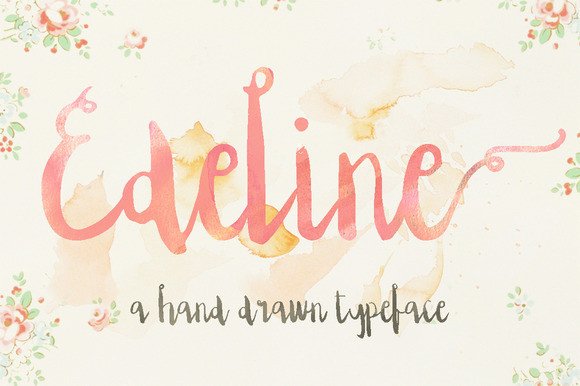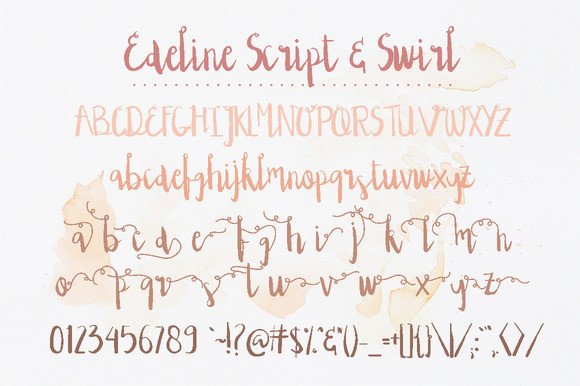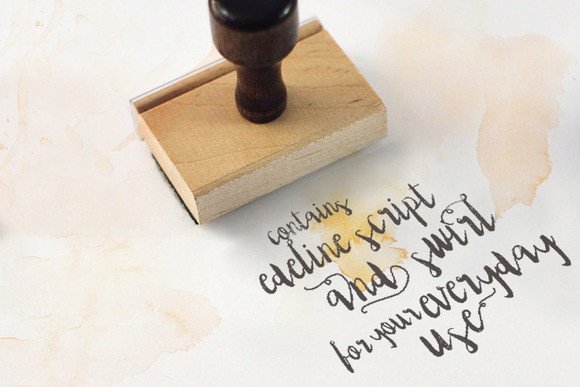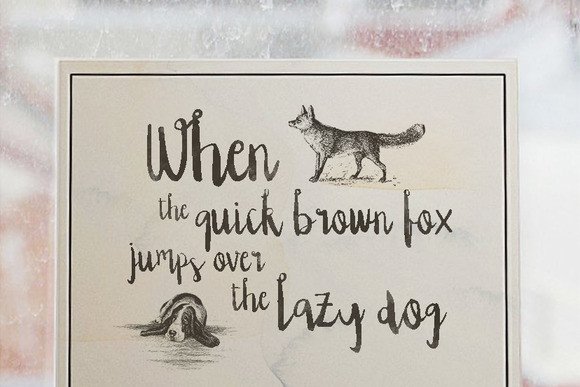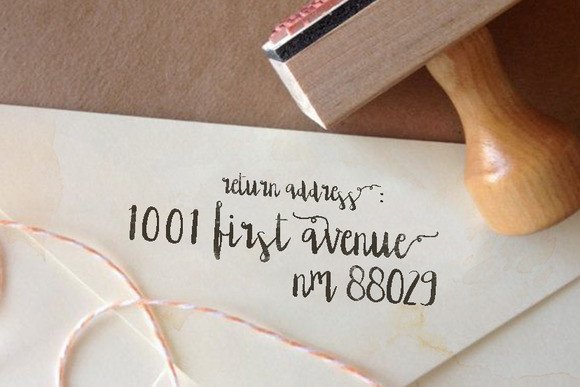
Edeline Font
About Edeline Font
Edeline is a chic typeface that will match all your design projects.
The font contains 2 styles: the script & the swirl. You can mix both to create a fun & feminine handwriting.